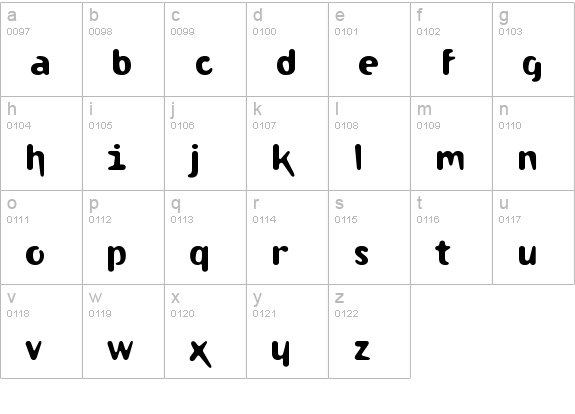
Droplet Font Details
Droplet font is a modern and sleek typeface that exudes elegance and sophistication. Its unique design features clean lines and smooth curves, making it perfect for a wide range of design projects. The Droplet font is versatile and can be used for both headings and body text, adding a touch of class to any layout. What's even better is that Droplet font is available for free download at FontsMarket.com. This means you can easily access this stylish font without any cost, making it a valuable addition to your collection of typography assets. Don't miss out on the opportunity to enhance your designs with the effortlessly chic Droplet font today!